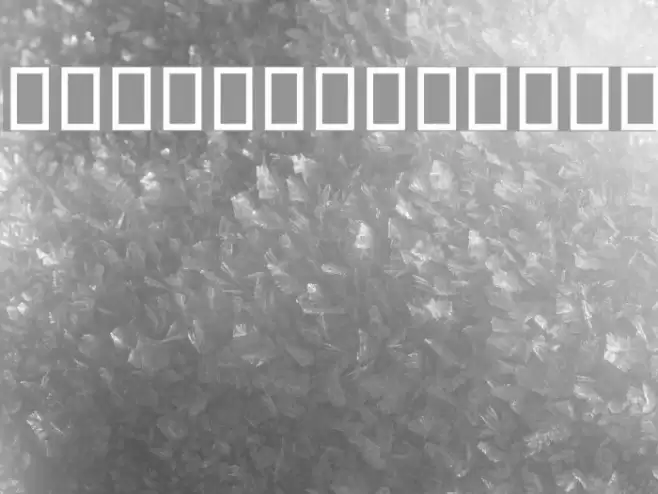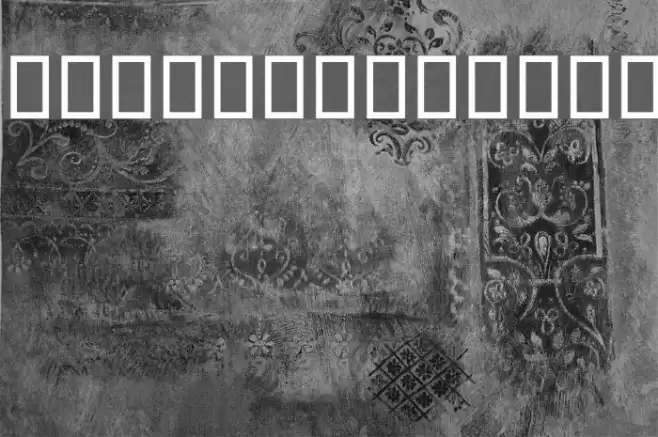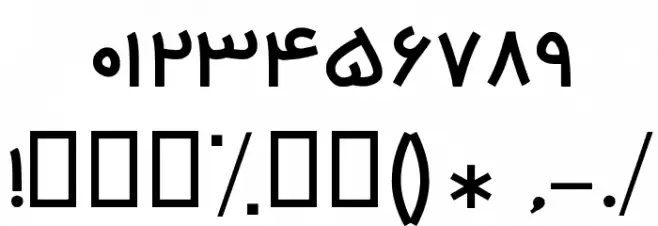
Salaamat Font
Salaamat Description
This font features a unique and artistic design, characterized by its flowing and interconnected strokes. The characters exhibit a sense of movement and fluidity, making it visually engaging. The numerals are distinct with a slight slant, adding to the dynamic appearance. Special characters are creatively styled, maintaining the overall aesthetic. This font's design is both modern and artistic, suitable for creative projects that require a touch of elegance and flair.
A modern, artistic font with flowing, interconnected strokes from Uncategorized fonts.
- Overall Style: Modern, Artistic